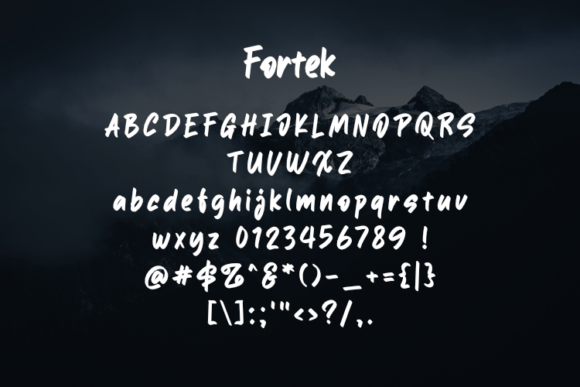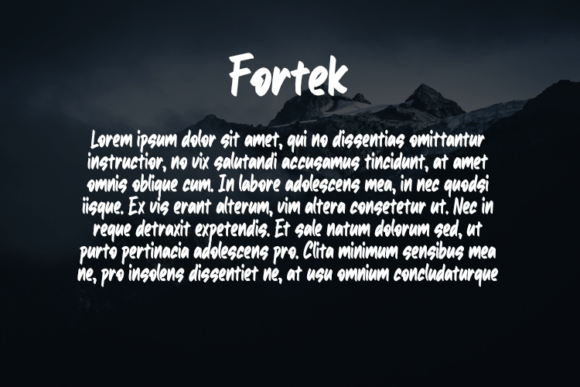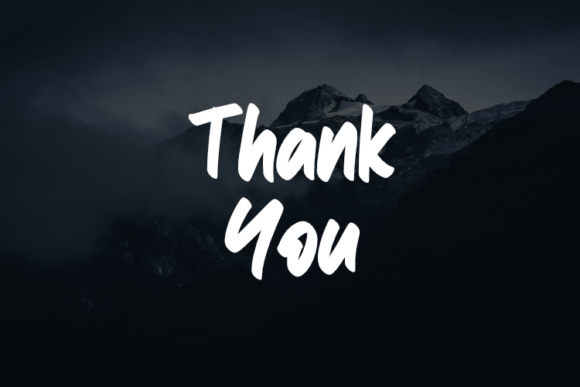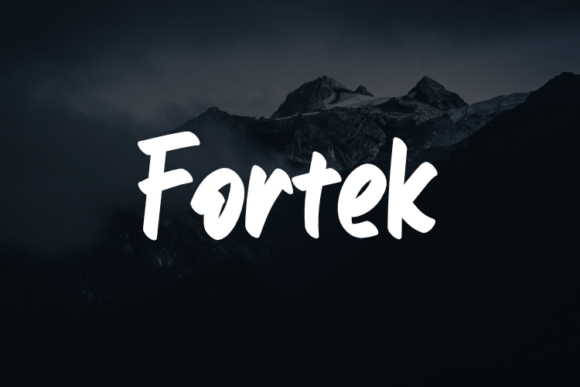
Introducing Fortek Font: The Ultimate Flexible Font for Designers and Crafters
In the world of design, typography plays a crucial role in conveying the message and aesthetic of a brand or product. With numerous font options available, finding the perfect one that suits your creative vision can be overwhelming. However, if you’re looking for a font that effortlessly lends itself to apparel and product design, look no further than Fortek Font. This versatile font is designed to seamlessly integrate with all software and design formats, making it an ideal choice for designers and crafters alike.
What Makes Fortek Font Stand Out?
Fortek Font is a game-changer in the world of typography, offering a unique blend of style, flexibility, and functionality. Here are some key features that make Fortek Font an excellent addition to your design toolkit:
- Versatility: Fortek Font is designed to adapt to various design scopes and themes, making it a fitting choice for a wide range of projects, from apparel and product design to branding and marketing materials.
- Seamless Integration: Fortek Font is compatible with all software and design formats, ensuring a smooth and hassle-free design experience.
- Dynamic Features: Fortek Font boasts stylish and dynamic features that will elevate your designs and give them a unique aesthetic.
Unlock the Full Potential of Your Design with Fortek Font
As a designer or crafter, you understand the importance of having a font that can keep up with your creative vision. Fortek Font is designed to help you unlock the full potential of your design, providing a flexible and adaptable typography solution that will take your projects to the next level.
Whether you’re working on a branding project, designing apparel or products, or creating marketing materials, Fortek Font is the perfect choice. Its unique aesthetic and dynamic features will add a touch of sophistication and style to your designs, setting them apart from the rest.
Benefits of Using Fortek Font
By incorporating Fortek Font into your design toolkit, you’ll enjoy a range of benefits, including:
- Increased Creativity: With Fortek Font, you’ll have the freedom to experiment with different design styles and themes, pushing the boundaries of your creativity.
- Improved Efficiency: The font’s seamless integration with all software and design formats will save you time and effort, allowing you to focus on the creative aspects of your project.
- Enhanced Professionalism: Fortek Font’s stylish and dynamic features will add a touch of professionalism to your designs, helping you to establish a strong brand identity.
In conclusion, Fortek Font is the ultimate flexible font choice for designers and crafters looking to infuse a unique aesthetic into their creations. With its versatility, seamless integration, and dynamic features, Fortek Font is the perfect solution for a wide range of design projects. Unlock the full potential of your design with Fortek Font and take your creative vision to new heights.
Get Ready to Elevate Your Design with Fortek Font